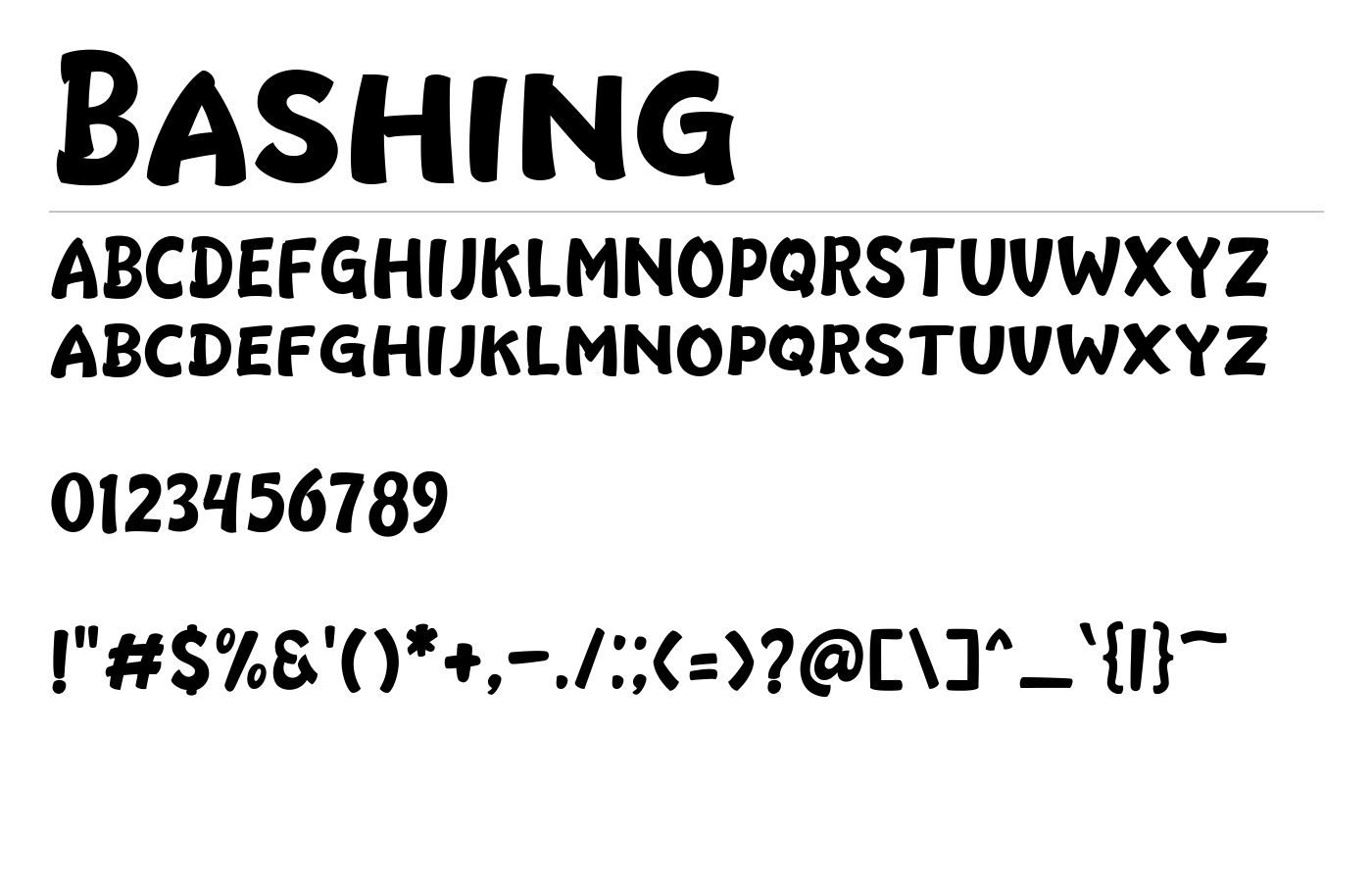
Bashing is a bold, playful sans serif font with a cartoonish, hand-drawn feel. Its thick strokes, irregular shapes, and high x-height give it an informal, energetic personality perfect for casual branding, children’s materials, and fun headlines. This font works well where a friendly and approachable vibe is needed, adding character without sacrificing readability.
Bashing Font
About Bashing Font